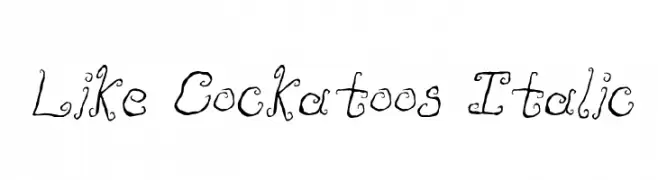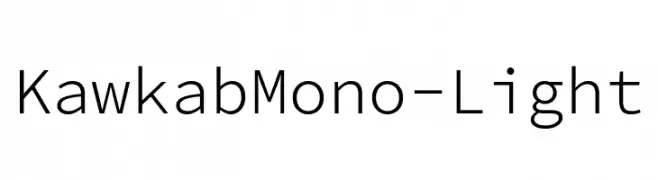
A bold, classic serif font with strong, pronounced strokes and well-defined serifs.
( Luc Mahler )
A high-contrast, elegant serif font with pronounced serifs and a classic appeal.
A clean, modern monospaced font ideal for coding and data presentation.
( Fonts by www.aenigmafonts.com )
A digital-inspired font with a binary code aesthetic, ideal for tech-themed designs.
A modern, geometric font with bold, angular characters.
( Fonts by www.typodermicfonts.com - Ray Larabie )
A bold, modern serif font with sharp edges and a structured design.
( Fonts by Vanessa Bays - bythebutterfly.com )
A playful, handwritten font with curly, looping strokes and a whimsical style.